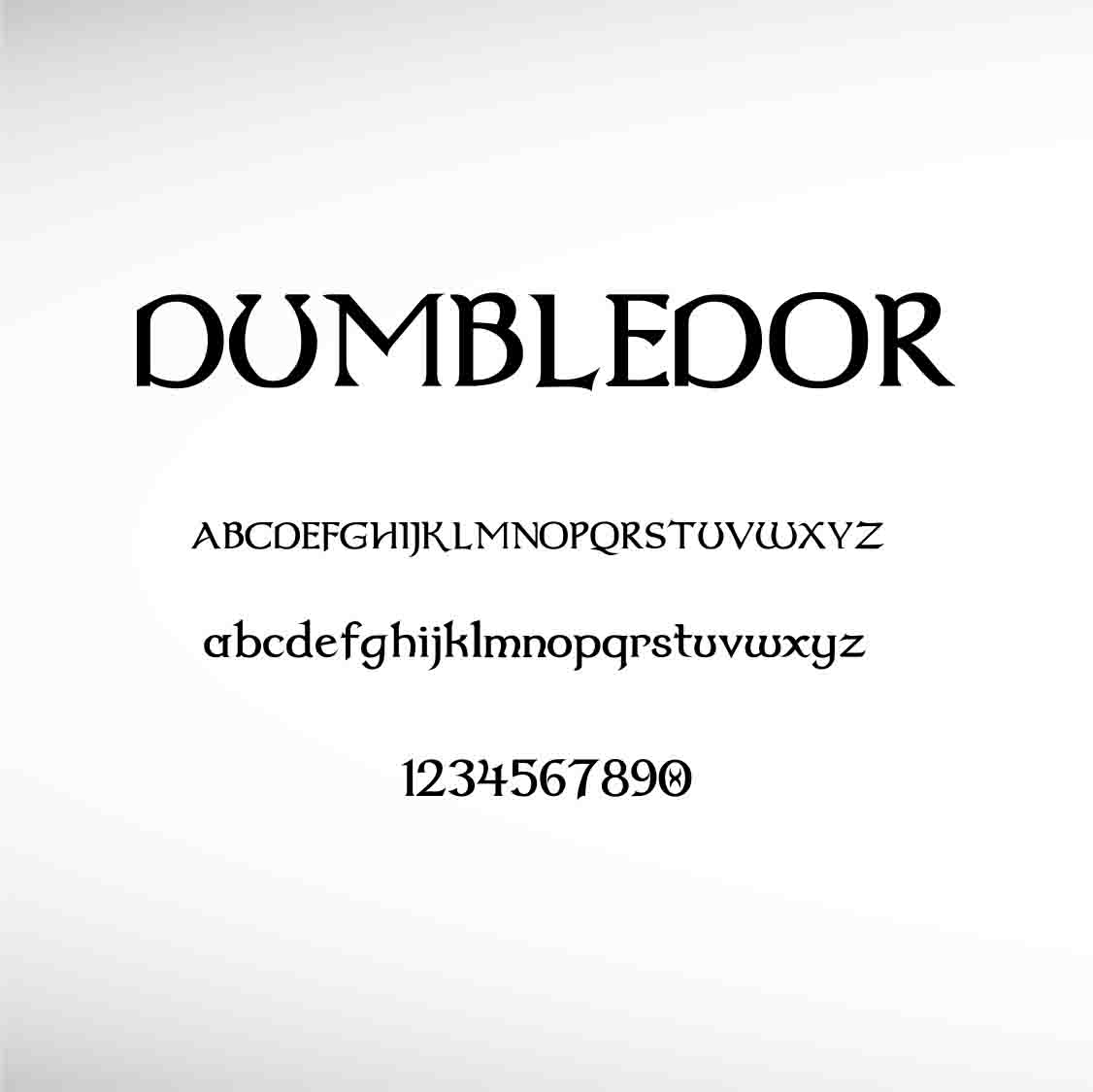
Dumbledor is a font for series of seven fantasy novels written by British author J. K. Rowling. The novels chronicle the lives of a young wizard, Harry Potter, ...